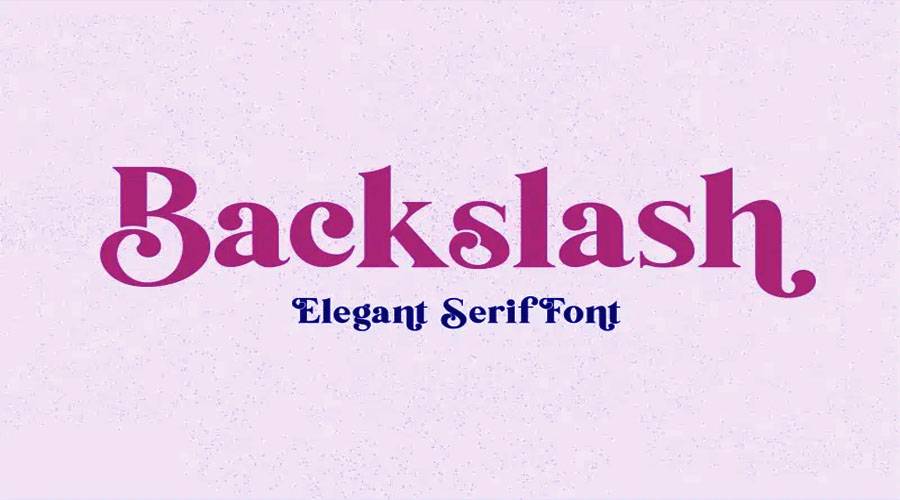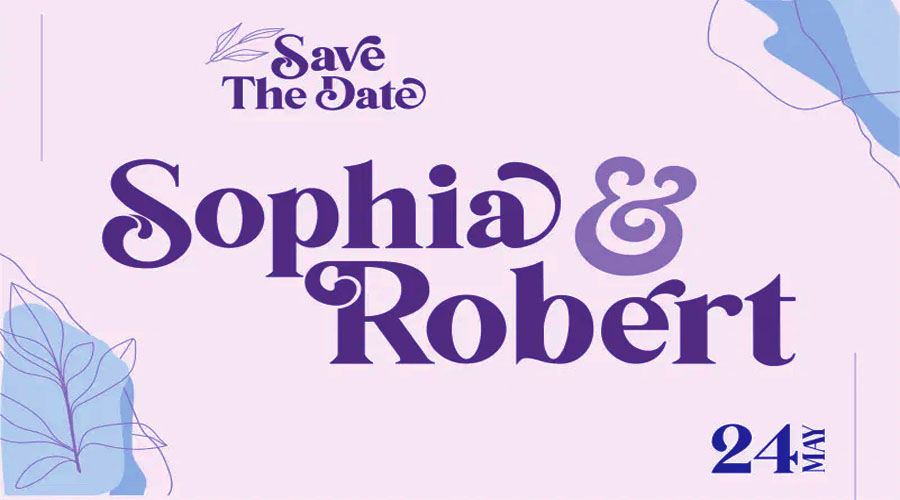
Backslash Serif Font
We are presenting “Backslash Serif Font” – A fresh out of the box new Serif Typeface. The text style is planned and distributed on June 1, 2020.
Backslash Serif Font has vast loads of elective characters, adornments, multilingual help and unique ligatures. Oblique punctuation line is an upper and lowercase serif textual style with pleasantly adjusted curves. Backslash can intrigue us with Classical Style by getting too huge loads of elective letters in Opentype Features. You can show the Elegant Typography Style basically by changing the dividing between the letters. This textual style is described by the strength of its characters, notwithstanding its transcendent stature of “x”, just as the rising and plunging, with especially short strokes.
Backslash Serif Font has a broad scope of expressive substitutes, permits adaptable plan alternatives, and turns out impeccably for features, logos, banners, bundling, T-shirts, postcards, intense magazine symbolism, and wedding solicitations marking, banner plan thus substantially more.